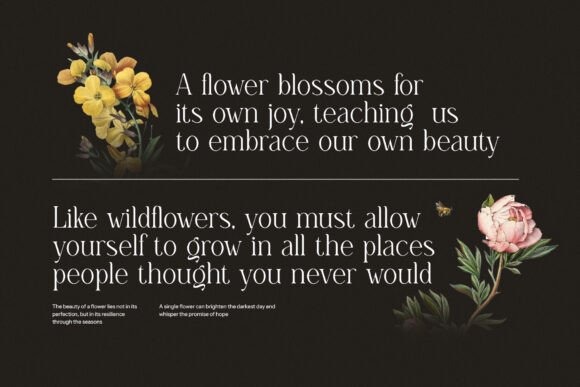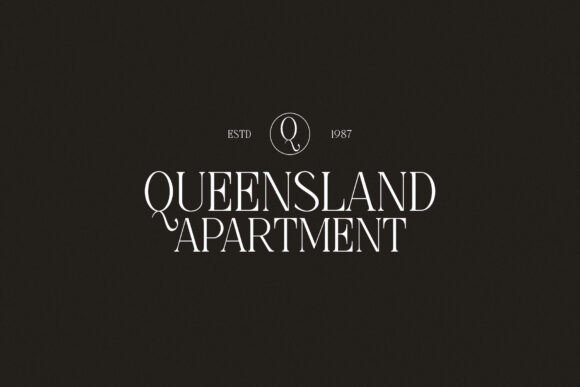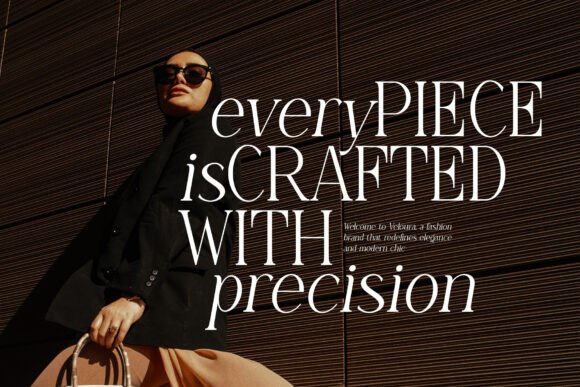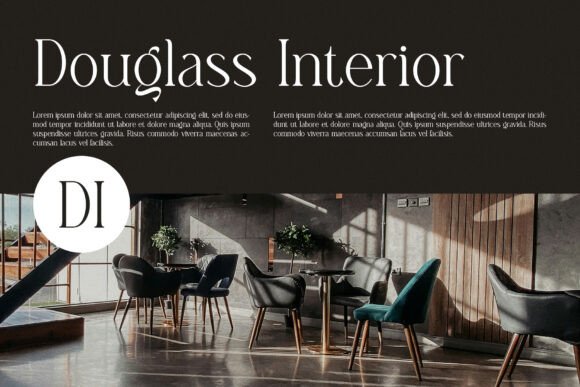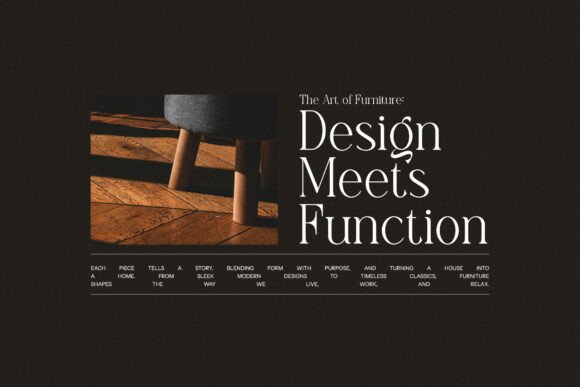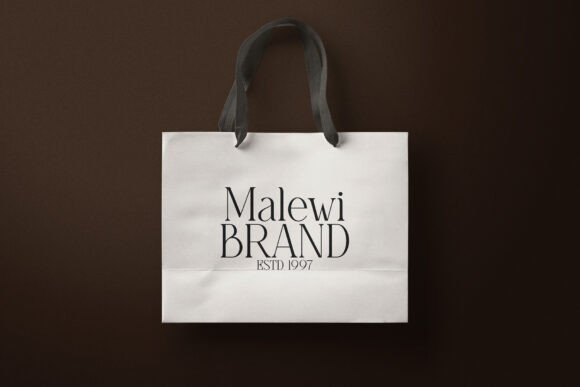
Introducing Englan Font: Elevate Your Designs with Elegance and Sophistication
In the world of typography, fonts play a crucial role in conveying the tone and personality of a design. For those seeking to add a touch of sophistication and elegance to their creations, Englan Font is an excellent choice. This beautiful serif font boasts smooth, classic letter shapes that exude refinement and poise, making it perfect for a variety of design applications, including invitations, logos, headlines, and more.
The Characteristics of Englan Font
Englan Font is distinguished by its graceful lines and classic serif design. Each letter is meticulously crafted to convey a sense of luxury and timelessness, making it an ideal choice for designers aiming to create high-end visuals. The font’s elegant appearance is characterized by:
- Smooth Lines: The font features exceptionally smooth lines that contribute to its sophisticated look.
- Classic Serif: The serif details add a traditional touch, giving the font a sense of heritage and reliability.
- Timeless Appeal: The design of Englan Font ensures it remains stylish and relevant across various mediums and trends.
Applications of Englan Font
The versatility of Englan Font makes it suitable for a wide range of design projects. Here are some of the key applications where this font truly shines:
- Invitations: Whether it’s a wedding invitation, a birthday party invite, or any formal event, Englan Font adds a touch of class and sophistication.
- Logos: For businesses aiming to establish a brand identity that communicates elegance and professionalism, Englan Font can be a valuable asset.
- Headlines: In editorial design, such as in magazines, newspapers, or digital publications, Englan Font can be used to create compelling headlines that capture attention.
- Packaging: For luxury products, the font can be used on packaging to convey a sense of high quality and exclusivity.
Tips for Using Englan Font Effectively
To maximize the impact of Englan Font in your designs, consider the following tips:
- Pair with Complementary Fonts: Englan Font works well when paired with sans-serif fonts for body text, creating a balanced and visually appealing design.
- Adjust Size and Weight: Experiment with different sizes and weights of the font to create hierarchy and emphasis in your design.
- Utilize White Space: Ensure that your design has sufficient white space to let the elegance of Englan Font shine through.
Englan Font offers designers a powerful tool to infuse their projects with elegance, sophistication, and a timeless appeal. Its classic serif design and smooth lines make it an excellent choice for a variety of applications, from formal invitations to luxury branding. By incorporating Englan Font into your design repertoire, you can elevate your work and create visually stunning pieces that leave a lasting impression.
Whether you’re a professional designer or a crafty DIY enthusiast, Englan Font is sure to become a favorite in your collection. Explore its potential, experiment with its applications, and discover how this elegant font can transform your designs.